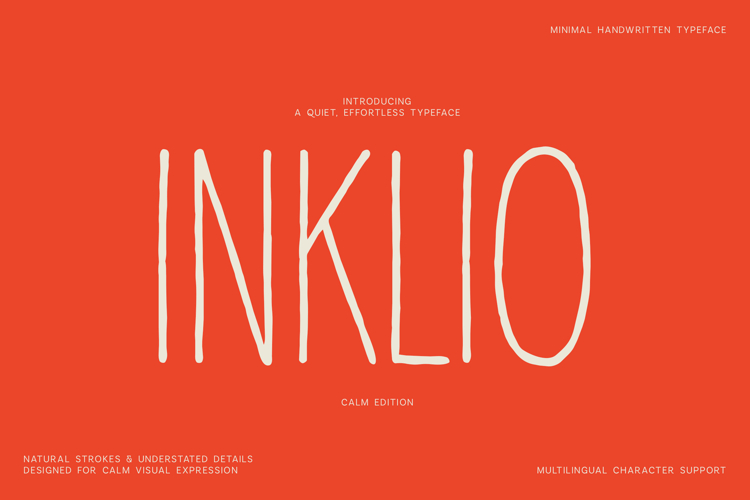
Inklio Calm is a minimal handwritten typeface with tall, narrow letterforms and a quiet, effortlessly organic character. Its natural strokes and subtle irregularities create a clean handmade appearance that feels modern and understated.
Designed for calm visual storytelling, Inklio works beautifully across minimalist branding, editorial layouts, social media graphics, packaging, posters, book covers, stationery, quotes, invitations, lifestyle projects, and contemporary logo design.
With its relaxed rhythm and simple construction, Inklio Calm brings an authentic human touch to modern creative work without overpowering the design.